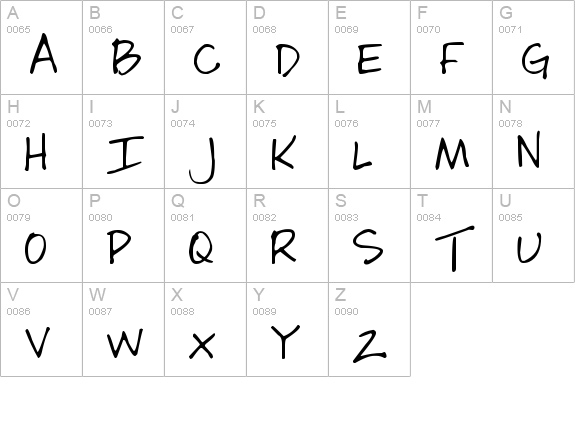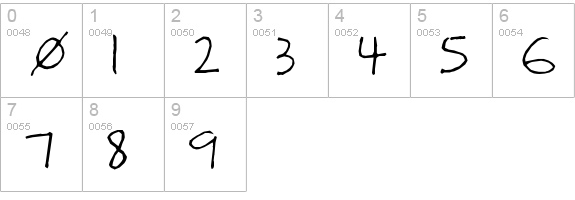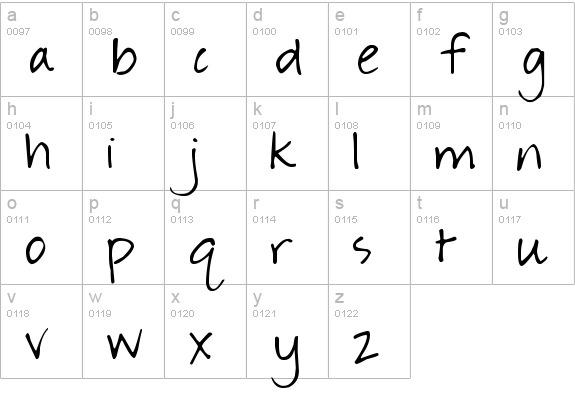
Socially Awkward Font Details
Introducing the Socially Awkward font, a quirky and charming typeface that captures the essence of awkwardness in the most delightful way. This unique font is designed for those who embrace their eccentricities and appreciate the beauty of imperfection. With its uneven letterforms and off-kilter spacing, Socially Awkward font brings a refreshing twist to any design project. Whether you're creating a playful poster, a whimsical logo, or a quirky greeting card, this font will add a touch of personality and charm. But what sets Socially Awkward font apart is not just its distinctive appearance, but also its accessibility. It's a font that believes in inclusivity and the power of free expression. That's why it's freely available to download at FontsMarket.com. Imagine the possibilities with Socially Awkward font. Let your creativity run wild as you use its unconventional shapes and unpredictable letterforms to make a statement. Whether you're looking to add a touch of quirkiness to a design or simply want to embrace your own social awkwardness, this font is here to help you make a bold and memorable statement. So, go ahead and download the Socially Awkward font today from FontsMarket.com. Unleash your inner awkwardness and let this font be your muse as you create designs that are as unique and captivating as you are.